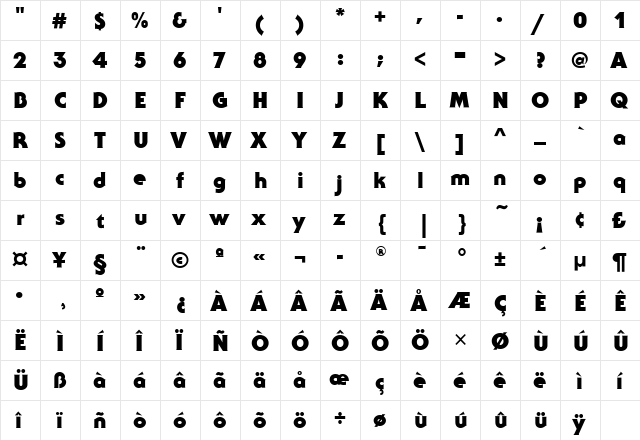
SerifGothicHvyITC Black
Design Context for SerifGothicHvyITC Typeface
SerifGothicHvyITC brings classic typographic sensibility to the table — its serifs and measured letterforms reflect centuries of print heritage.
Pro Tip: Set SerifGothicHvyITC with slightly loose tracking in headlines to let each letterform's detail read clearly at display sizes.